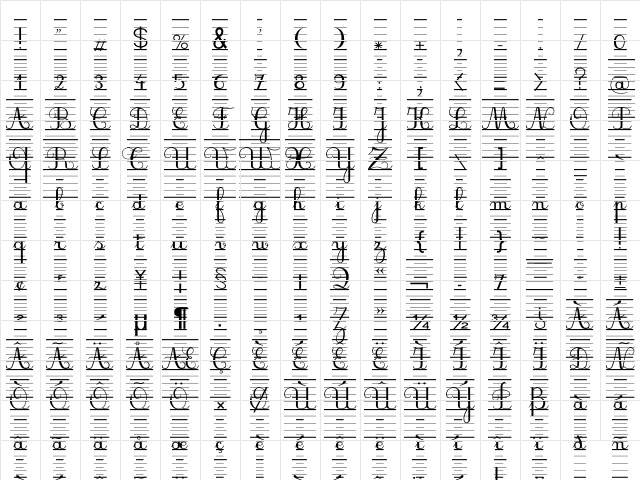
SeyesNDL Regular
Design Context for SeyesNDL
SeyesNDL is a composed and adaptable typeface that performs quietly and consistently across a wide range of design contexts.